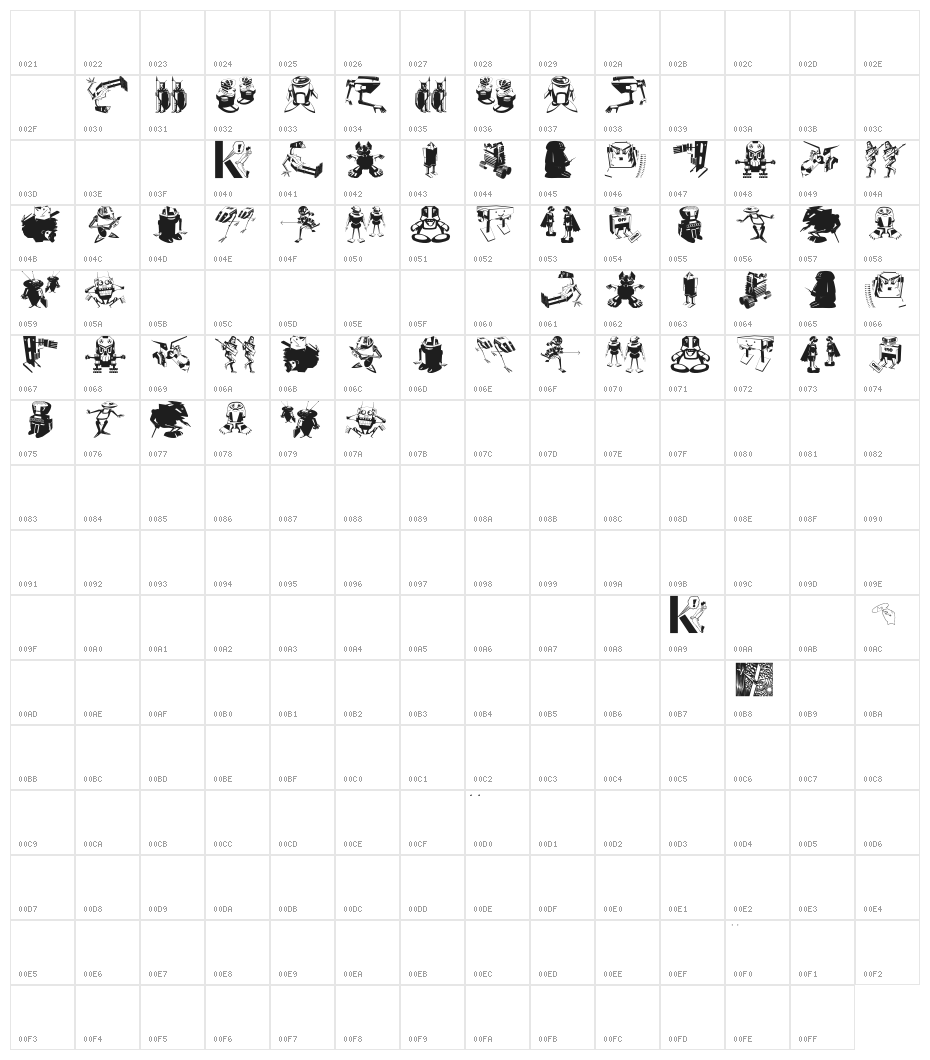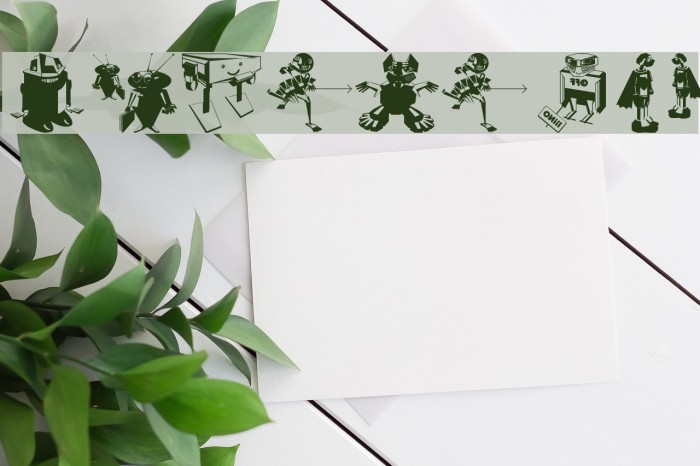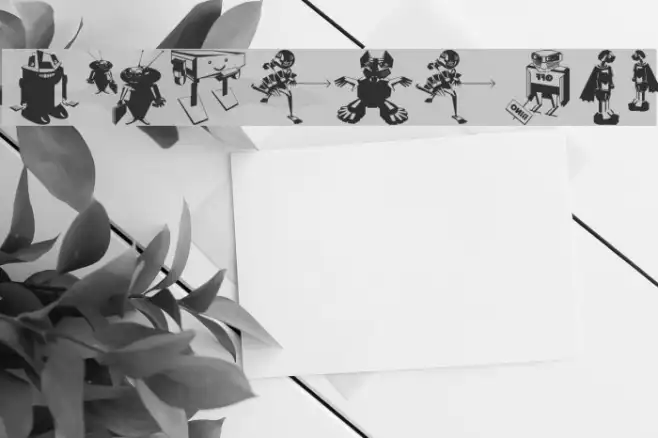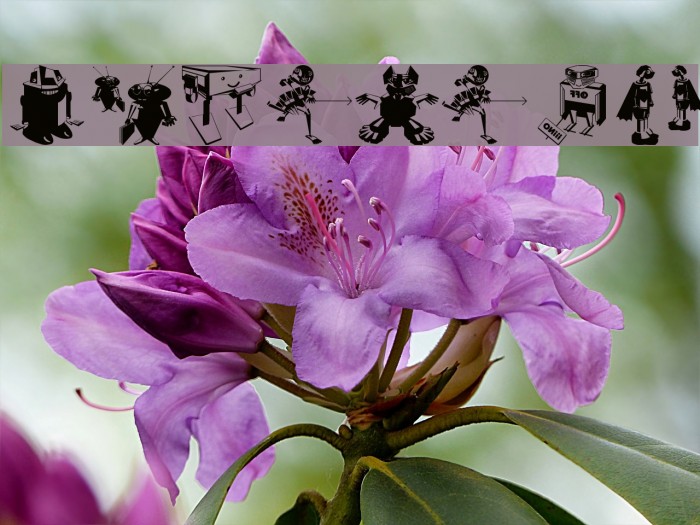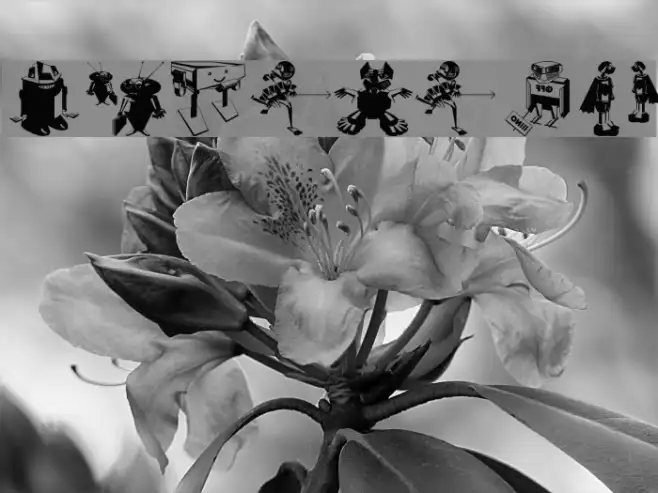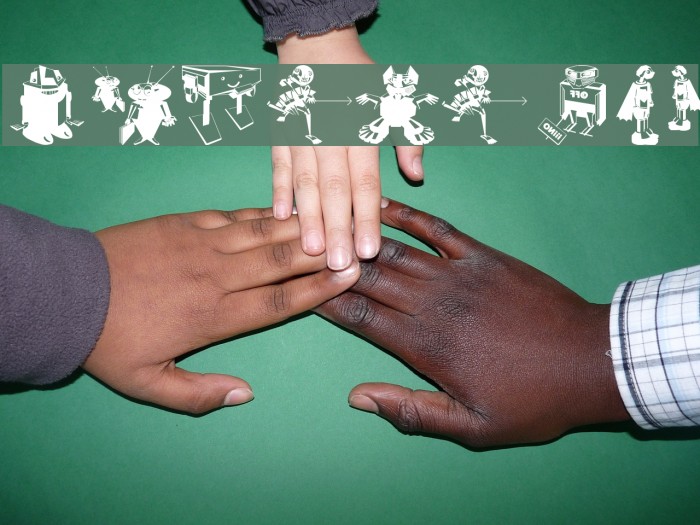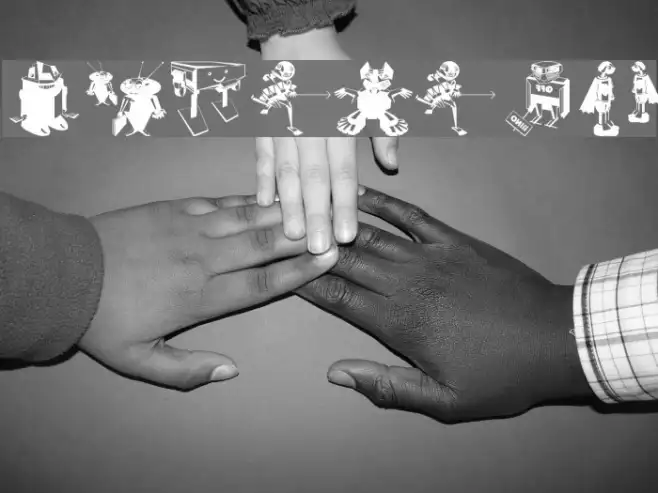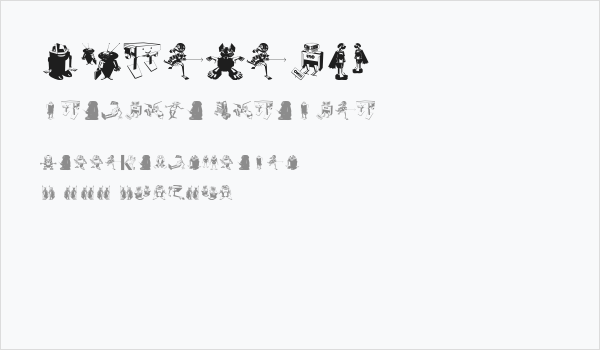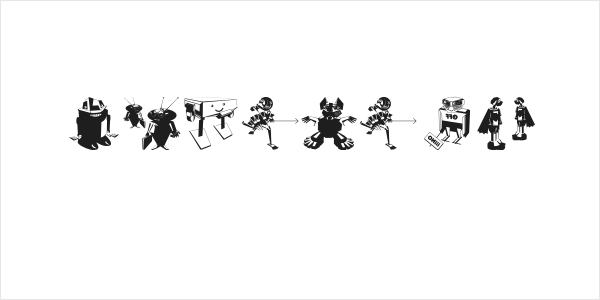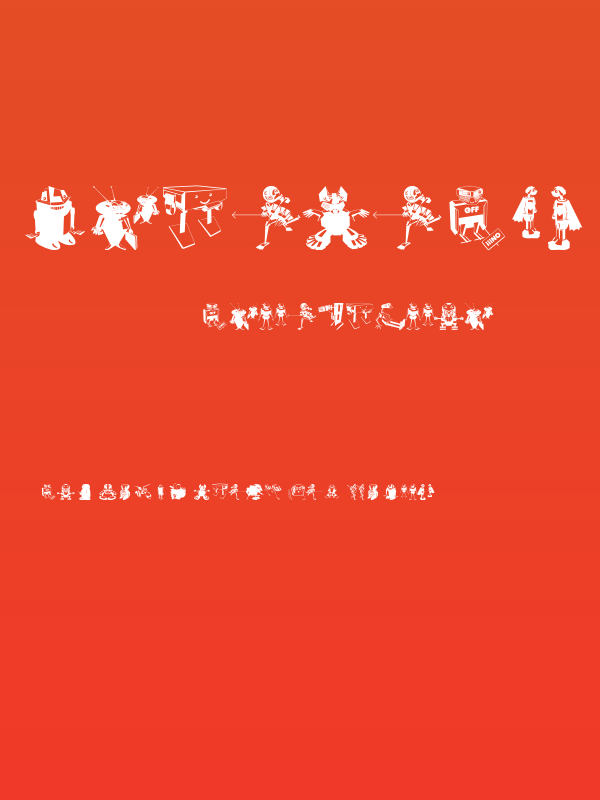
MyRobots Font
MyRobots Description
A highly decorative and playful font where each character is represented by a unique robot illustration, blending letterforms with whimsical robotic designs. The glyphs are bold, mostly upright, and have a cartoonish, futuristic aesthetic with high visual complexity.
| Overall Style | Futuristic, Playful, Decorative |
| Use Case | Logos, Posters, Headlines, Themed graphics |
| Proposed Projects | Children's books, sci-fi posters, robotics event branding, educational materials, playful packaging, themed party invitations. |